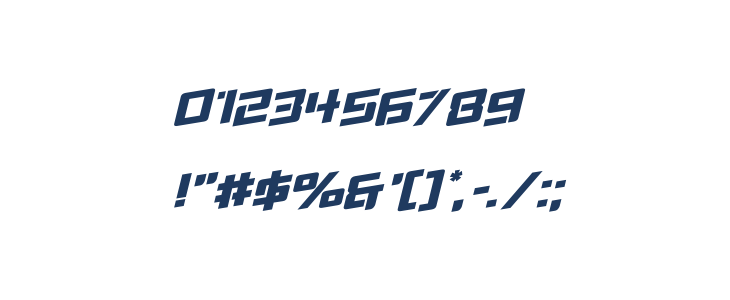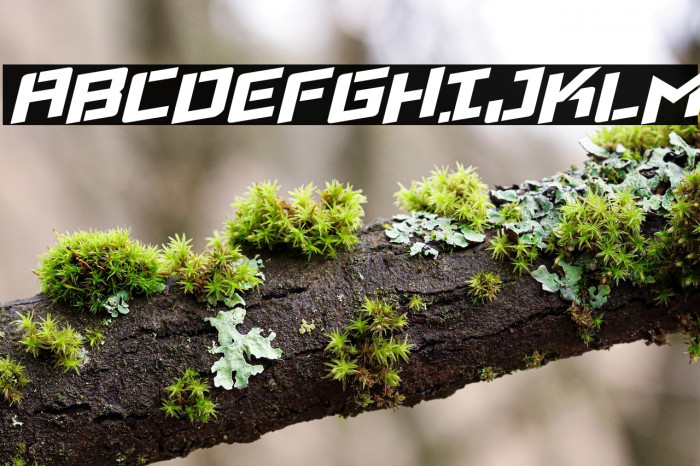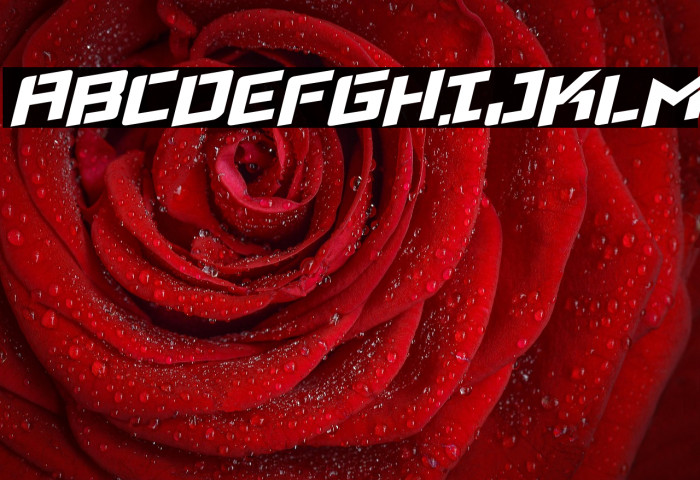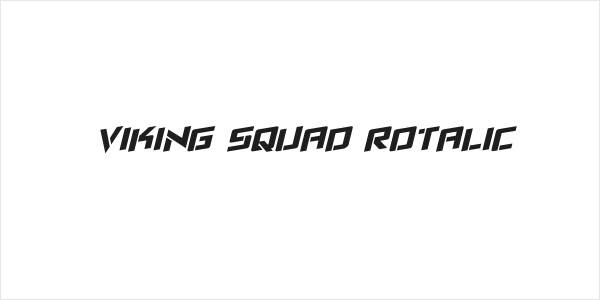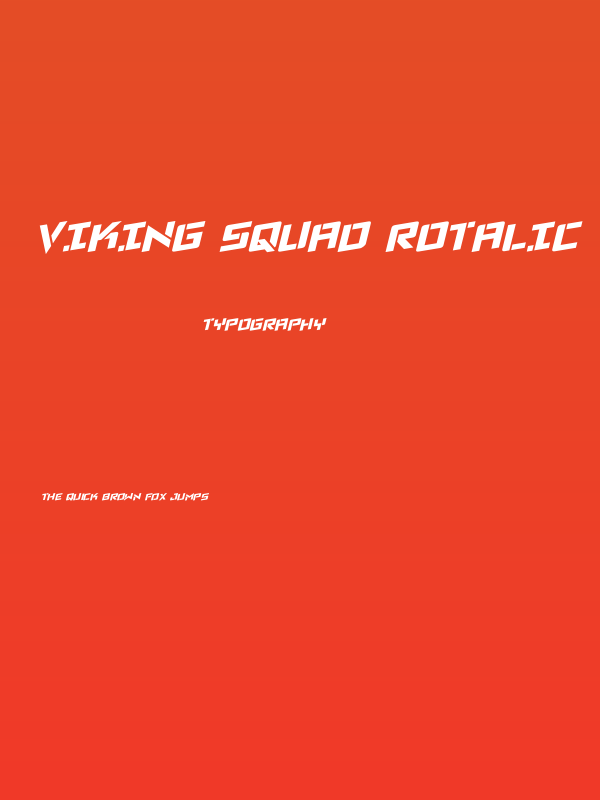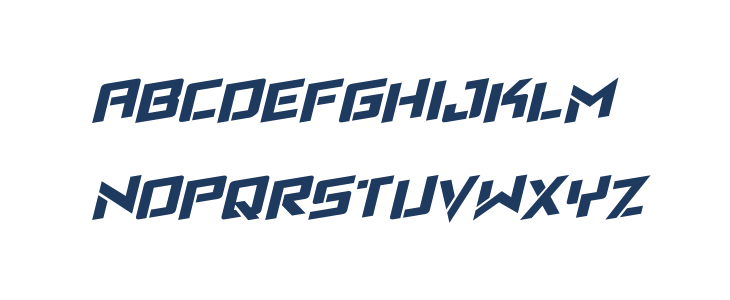
Viking Squad Rotalic Font
Viking Squad Rotalic Description
This font features a bold and dynamic style with a distinct slant, giving it a sense of motion and energy. The characters are angular and sharp, with a futuristic and aggressive appearance. The uppercase and lowercase letters maintain a consistent style, with the lowercase slightly smaller but equally impactful. Numbers and special characters follow the same design principles, ensuring uniformity across all elements. The font's strong presence makes it suitable for attention-grabbing designs.
Proposed ProjectsIdeal for sports branding, video game titles, action movie posters, and dynamic logo designs.